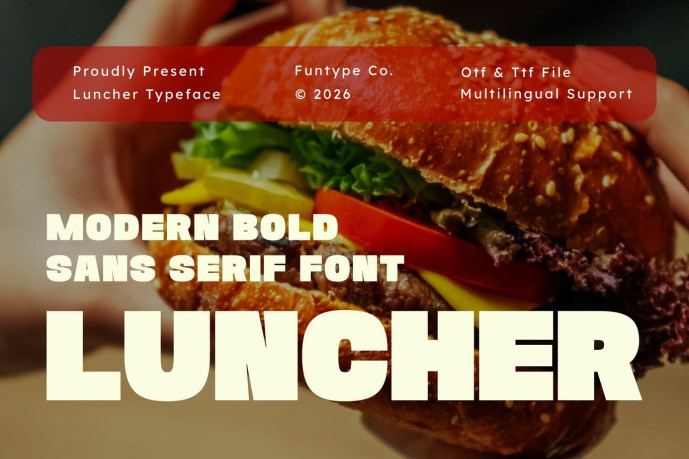
Luncher – Modern Bold Sans Serif Font
Luncher is a thick and modern bold sans serif font, engineered to bring a fun, inviting structural presence, heavy display weight, and vibrant culinary aesthetic to contemporary creative layouts. Featuring an ultra-bold block silhouette, solid horizontal footprint, and friendly geometric lines, Luncher introduces a premium food packaging, fast-casual dining identity, and prominent lifestyle media personality designed to claim immediate visual focus.
This font family is the ultimate choice for creative directors, culinary brand publishers, and agency graphic designers looking to implement a robust, playful typography identity for major headline hierarchies. Whether you are developing bold restaurant brand identities, gourmet food truck logos, snack packaging designs, culinary TV show title sequences, cafe menu header banners, or prominent digital web promotions, Luncher stands out with supreme legibility and energetic presence.
Modern Ultra-Bold Structure: Optimized with a solid, heavy block silhouette for eye-catching food and beverage title compositions.
Inviting Chunky Geometry: Thick, playful lines crafted to evoke appetite and secure instant audience attention.
Vibrant Culinary Aesthetic: Clean, thick strokes balanced with friendly contours, perfect for cutting-edge hospitality brands and digital lifestyle media networks.